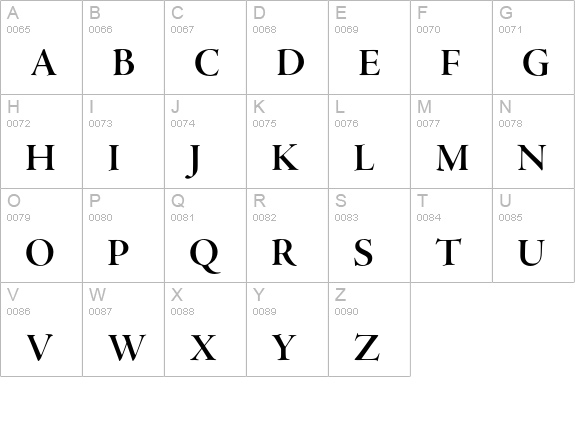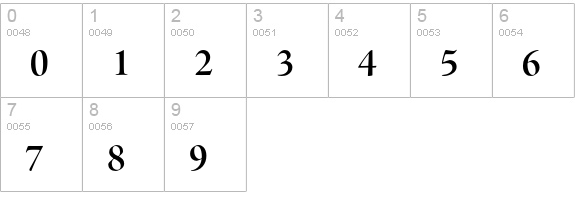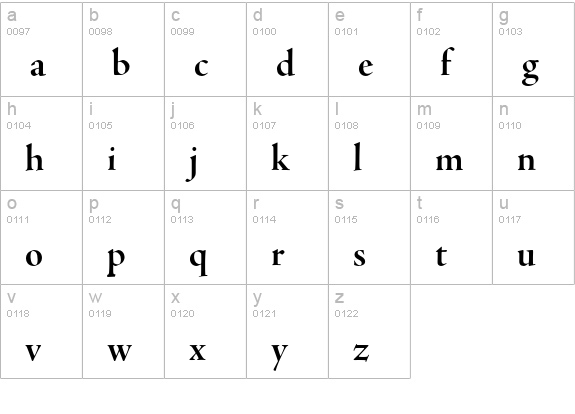
Adobe Jenson Pro Bold Display Font Details
Adobe Jenson Pro Bold Display is a strong, high-contrast variant in the Adobe typeface family \xE2\x80\x94 well suited to headlines, attention-grabbing titles, and strong calls-to-action.
Adobe Jenson Pro Bold Display is a striking and versatile font that exudes elegance and sophistication. Its bold weight commands attention and makes a bold statement in any design project. The design of this typeface is a modern interpretation of classic serif fonts, with its clean lines and balanced proportions giving it a timeless and refined look. This font is perfect for headlines, titles, and other display purposes where you want to make a strong impact. Whether used in print or digital media, Adobe Jenson Pro Bold Display adds a touch of class and professionalism to any design. The best part is that Adobe Jenson Pro Bold Display is available for free download at FontsMarket.com. So go ahead and elevate your design projects with this exquisite font, without having to spend a dime!